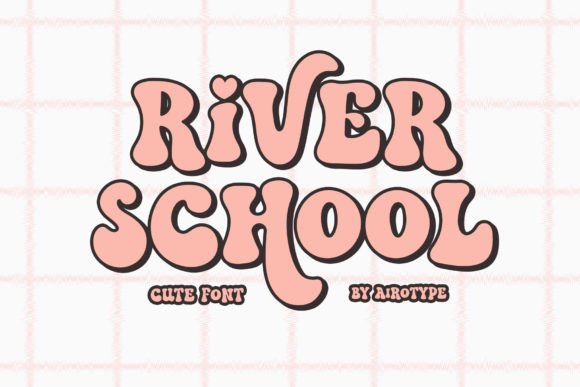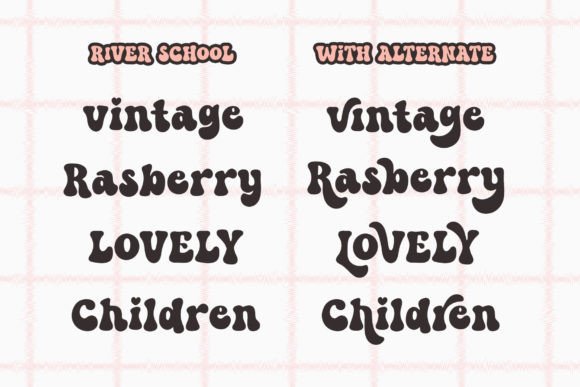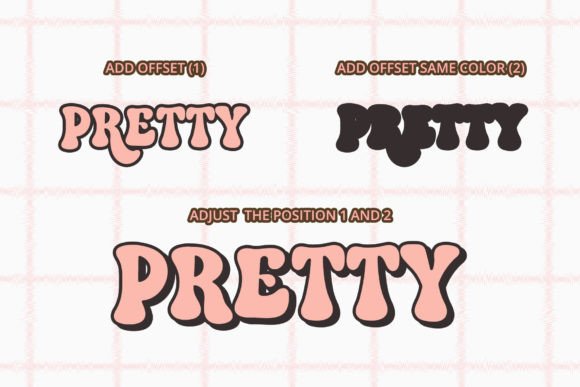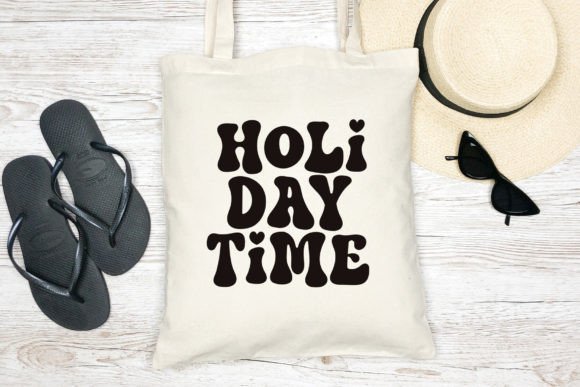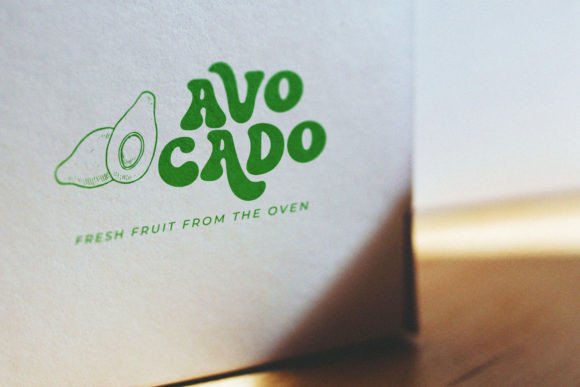
River School Font
River School is a charming, bold, and bubbly retro font with a playful, vintage feel. It includes extra glyphs and alternates for both uppercase and lowercase letters, providing more design options. Perfect for festive designs with a cute and retro touch, River School is ideal for back-to-school projects, kids’ designs, birthday invitations, summer themes, vintage looks, t-shirts, crafts, stickers, sublimation, and more.